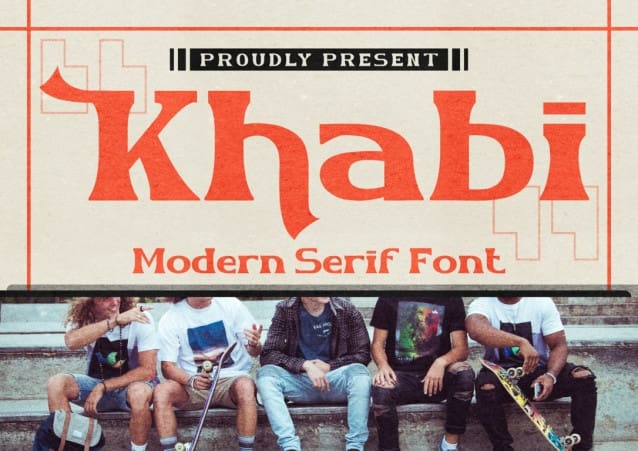
Khabi Font
Khabi Font, a stylish font that seamlessly blends retro and modern aesthetics. Its bold curves exude a groovy 70s vibe, while the serifs add a touch of tradition. Khabi perfectly complements vintage mood boards and logos. It features distinct lowercase and uppercase letters,with numbers, punctuation marks, and multilingual characters.